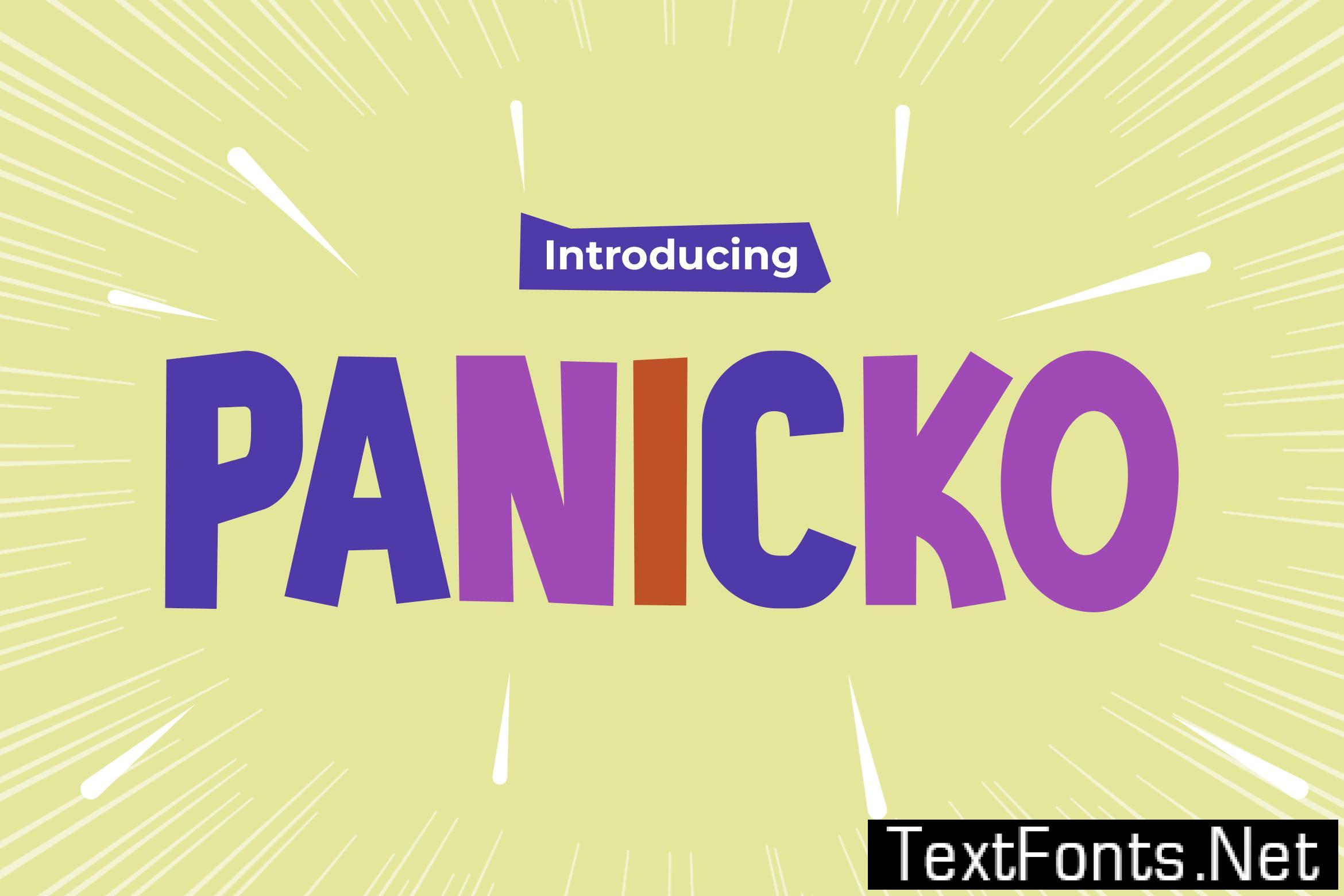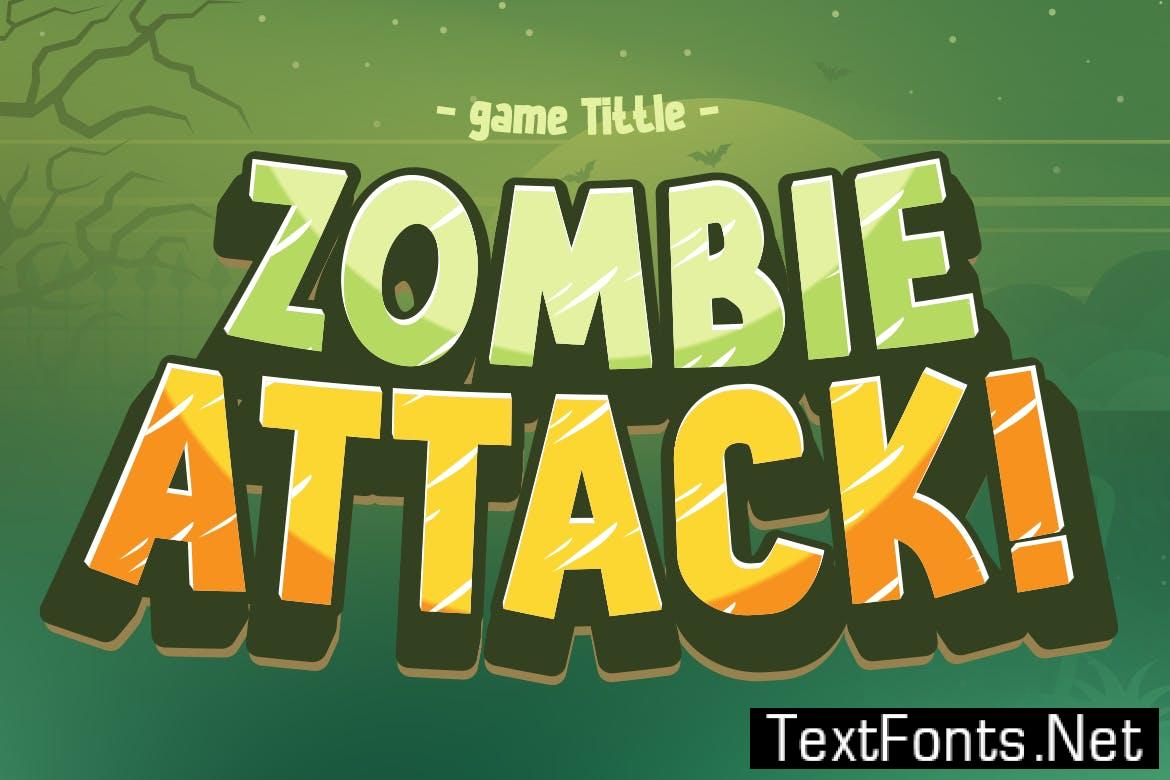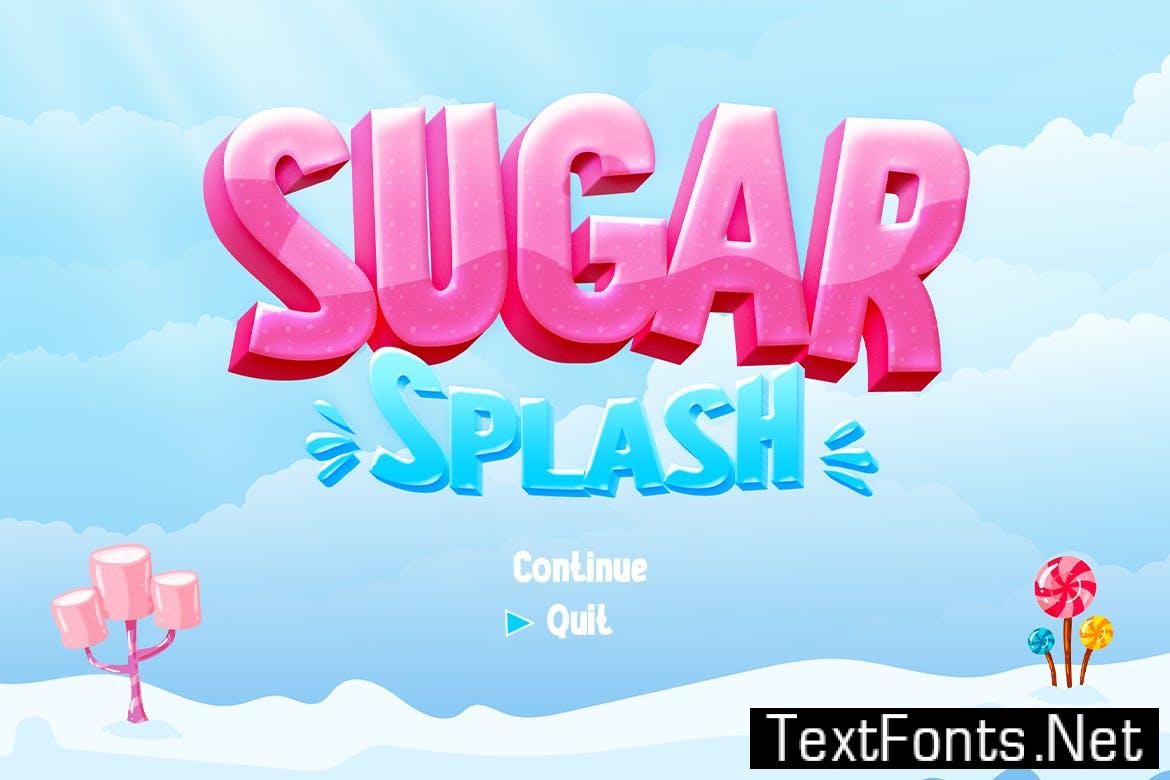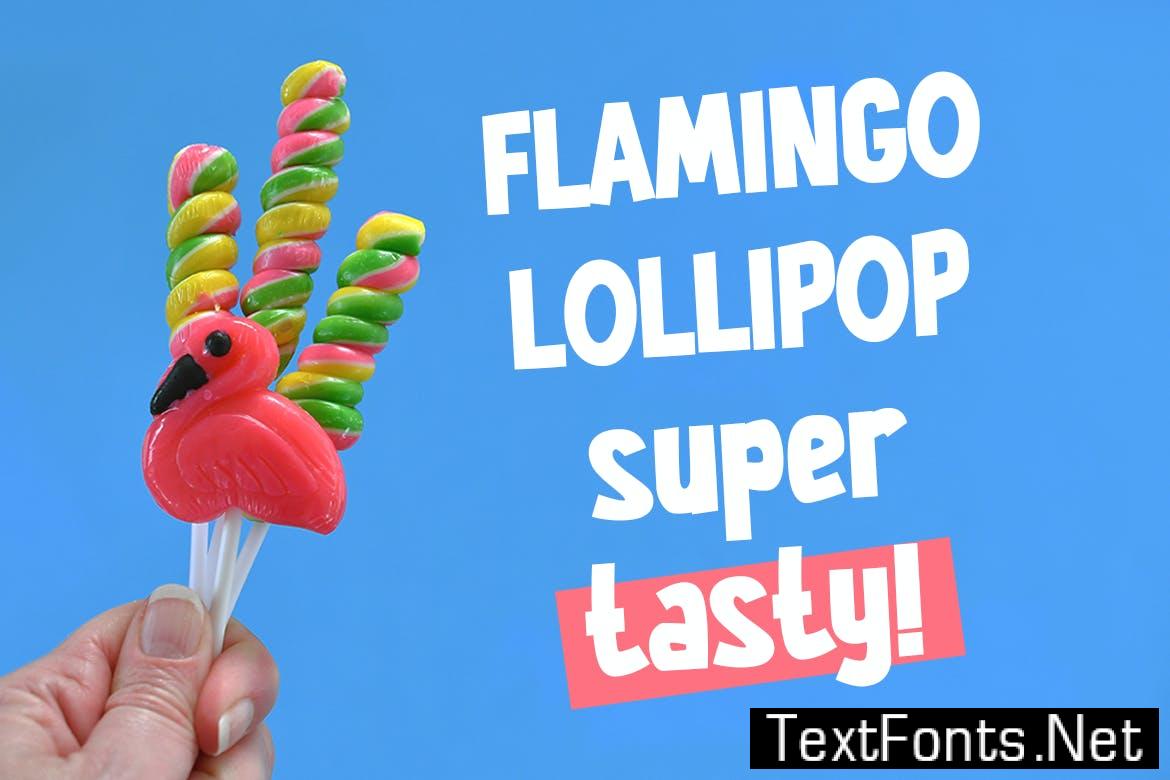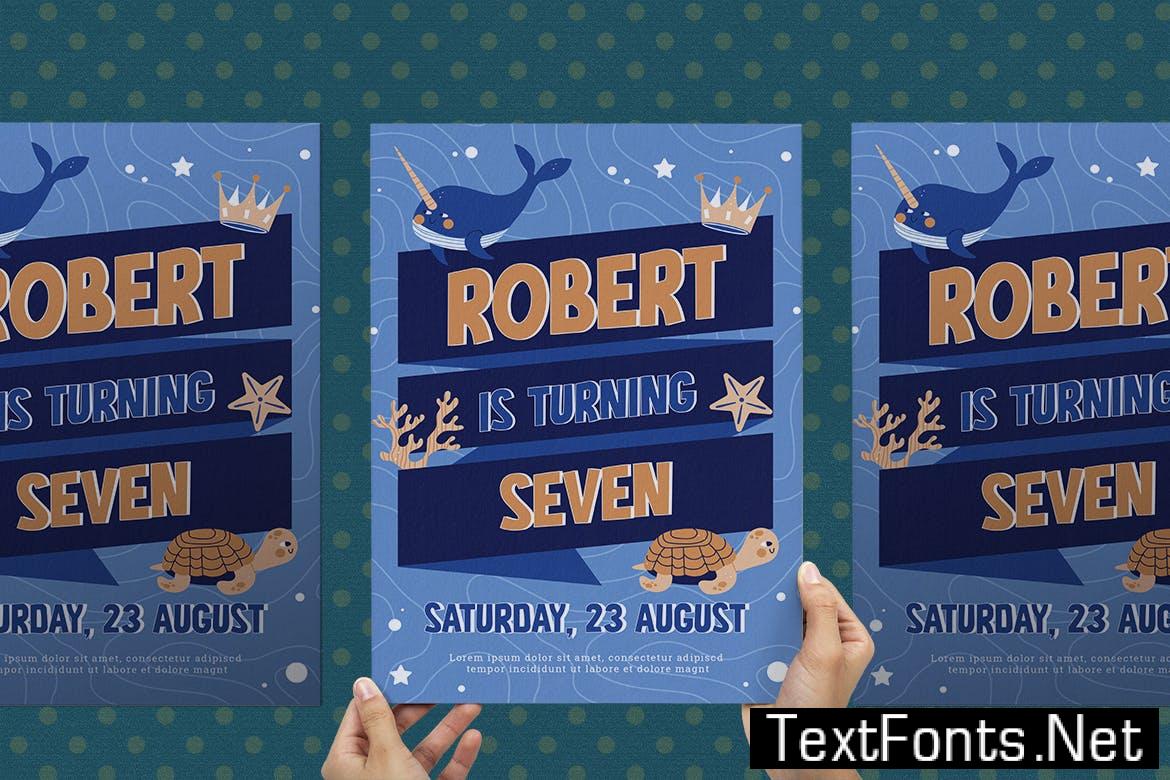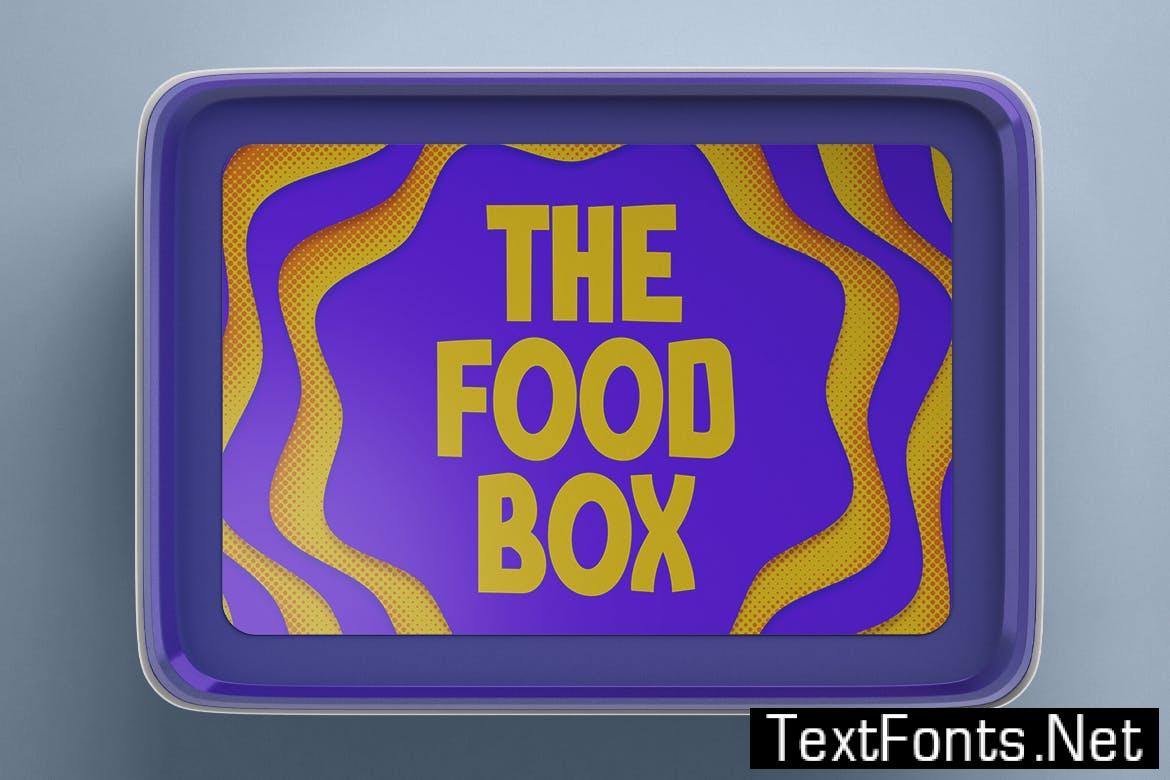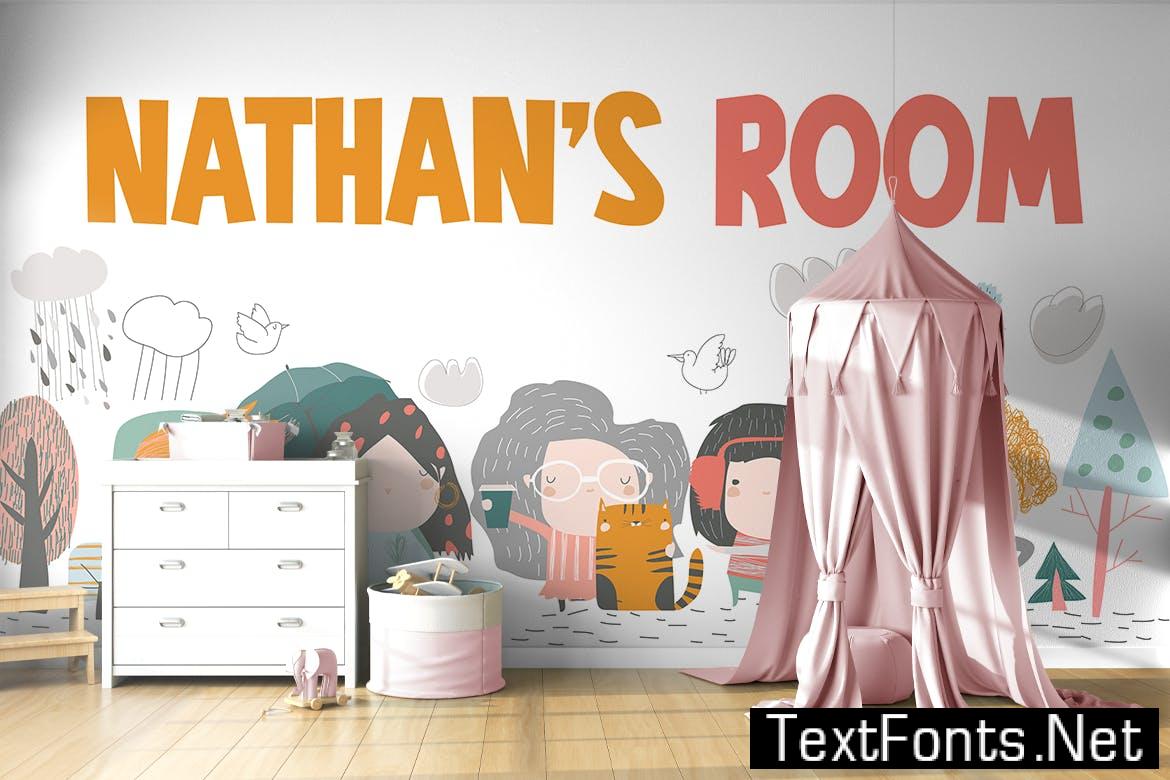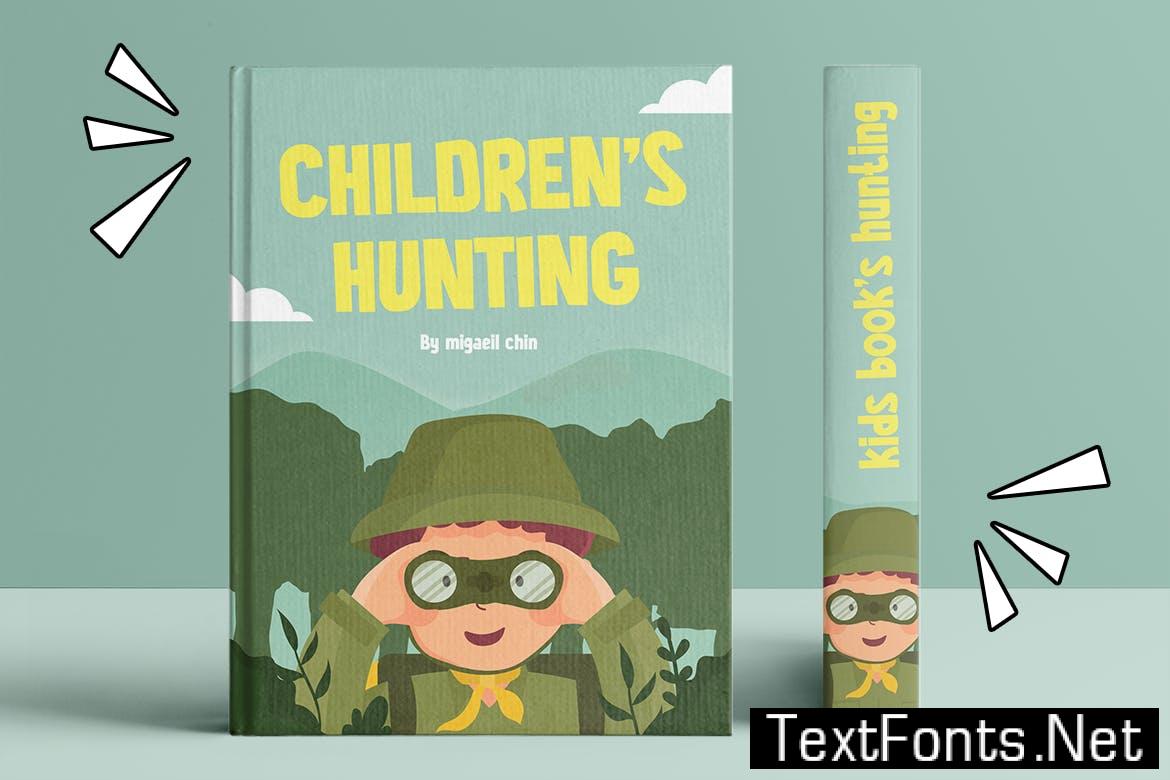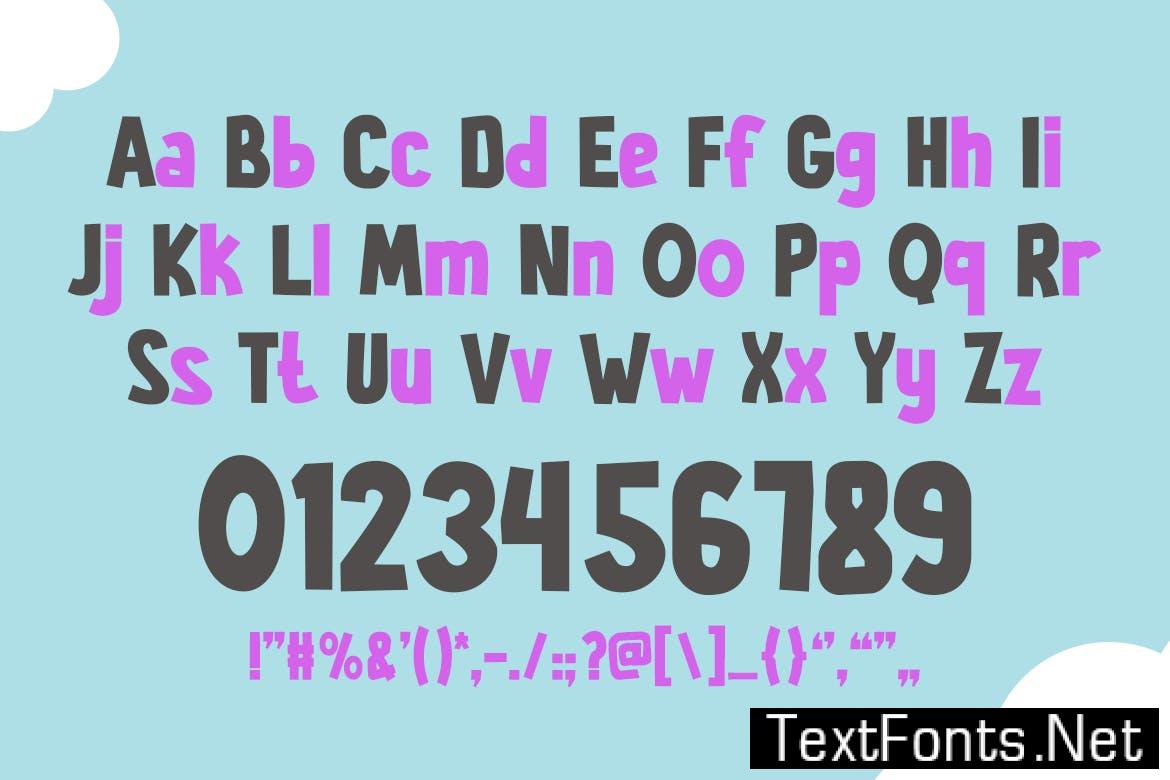
Panicko is a vibrant sans-serif font designed for kids’ entertainment and gaming. Its playful and funny style captures the essence of fun and brings a dynamic energy to any project. Perfect for creating eye-catching logos, Panicko adds a touch of whimsy and joy that resonates with young audiences. It enhances quotes with a light-hearted vibe and makes invitations pop with excitement and charm. Whether designing posters, greetings, or event materials, Panicko ensures your messages are engaging and memorable. This font also excels in packaging and branding, where its fun personality helps products stand out on the shelves. With its broad appeal in digital and print media, Panicko is ideal for covers, headlines, and advertising campaigns that target a youthful, energetic demographic.